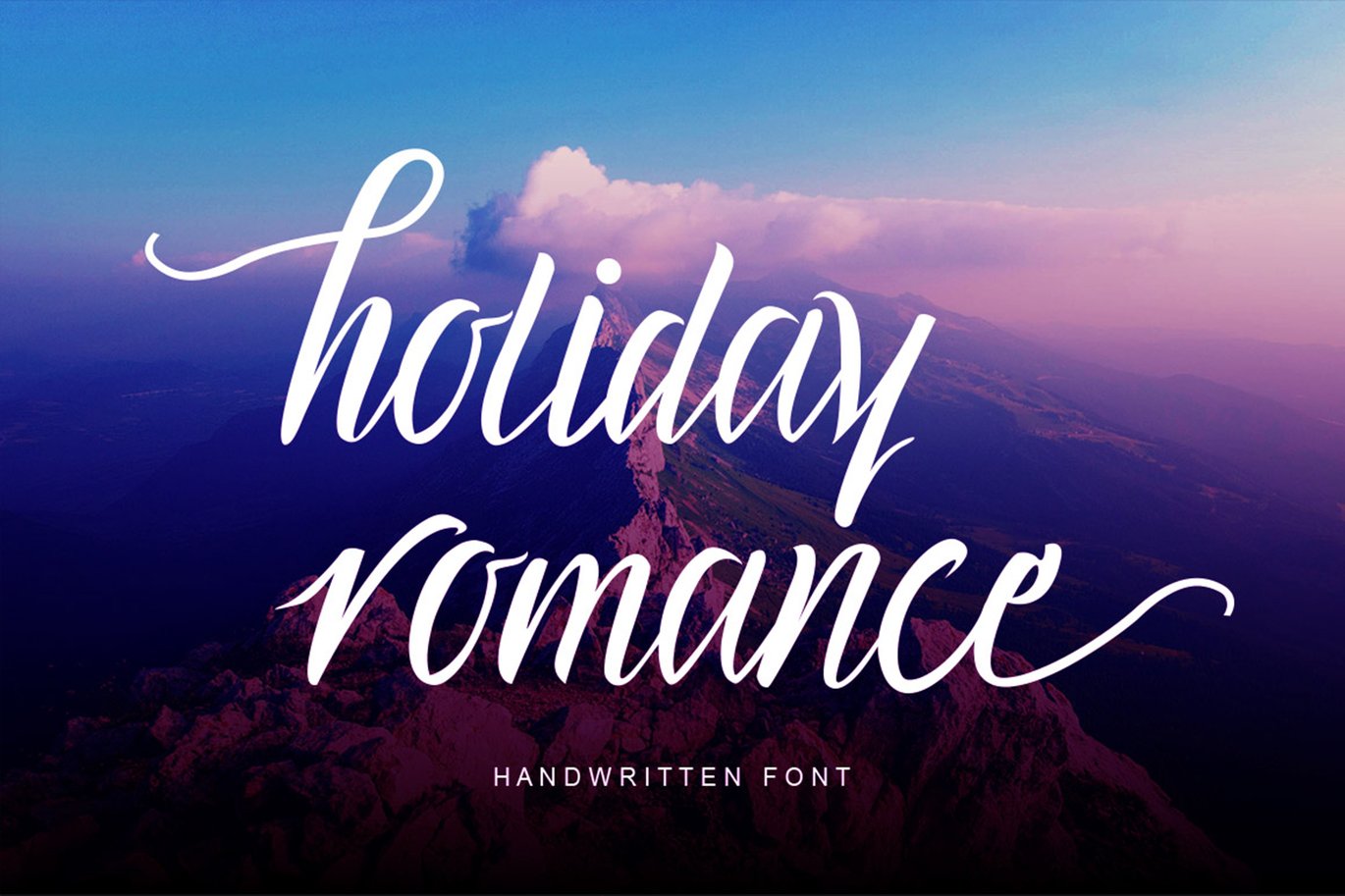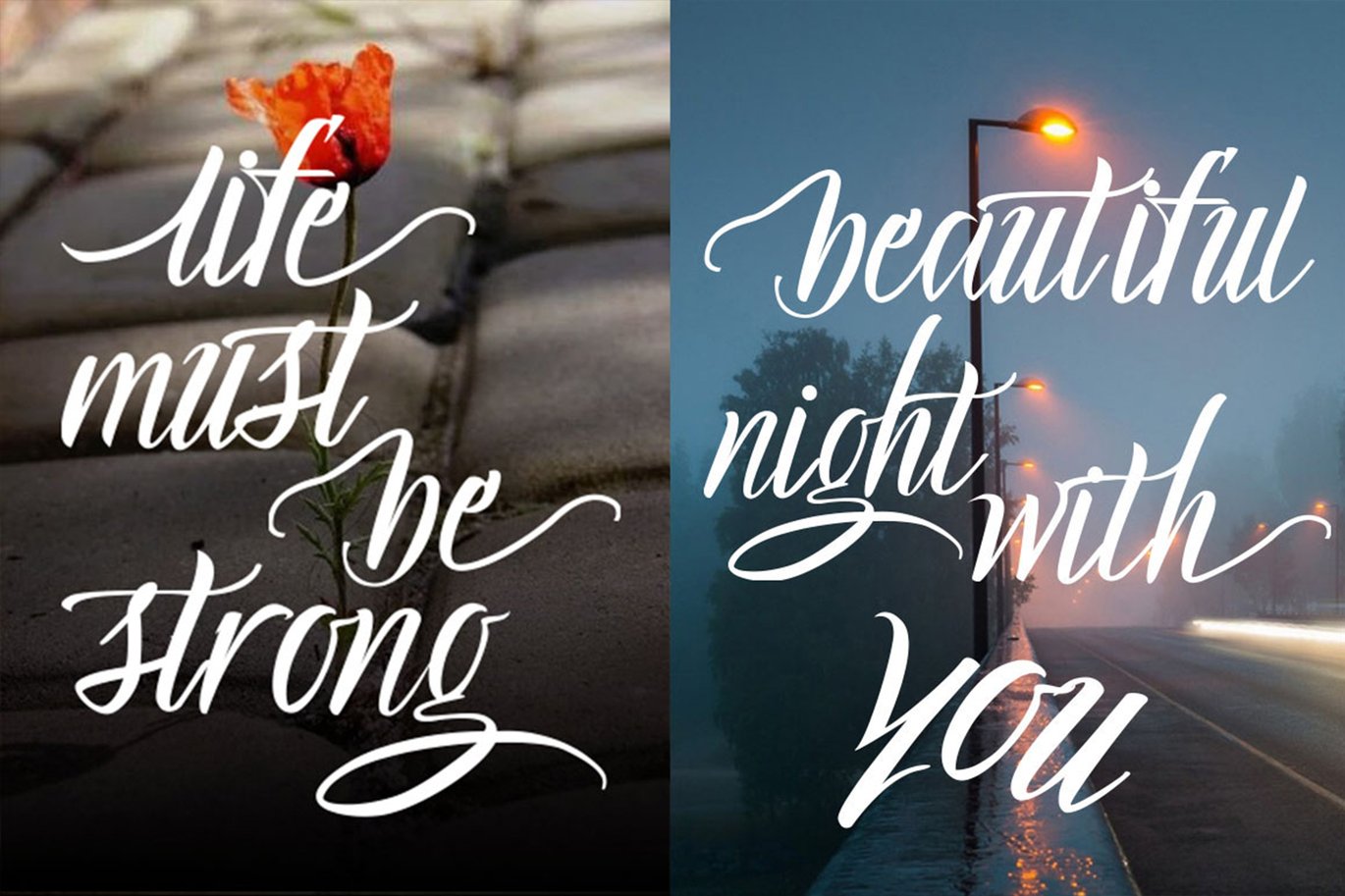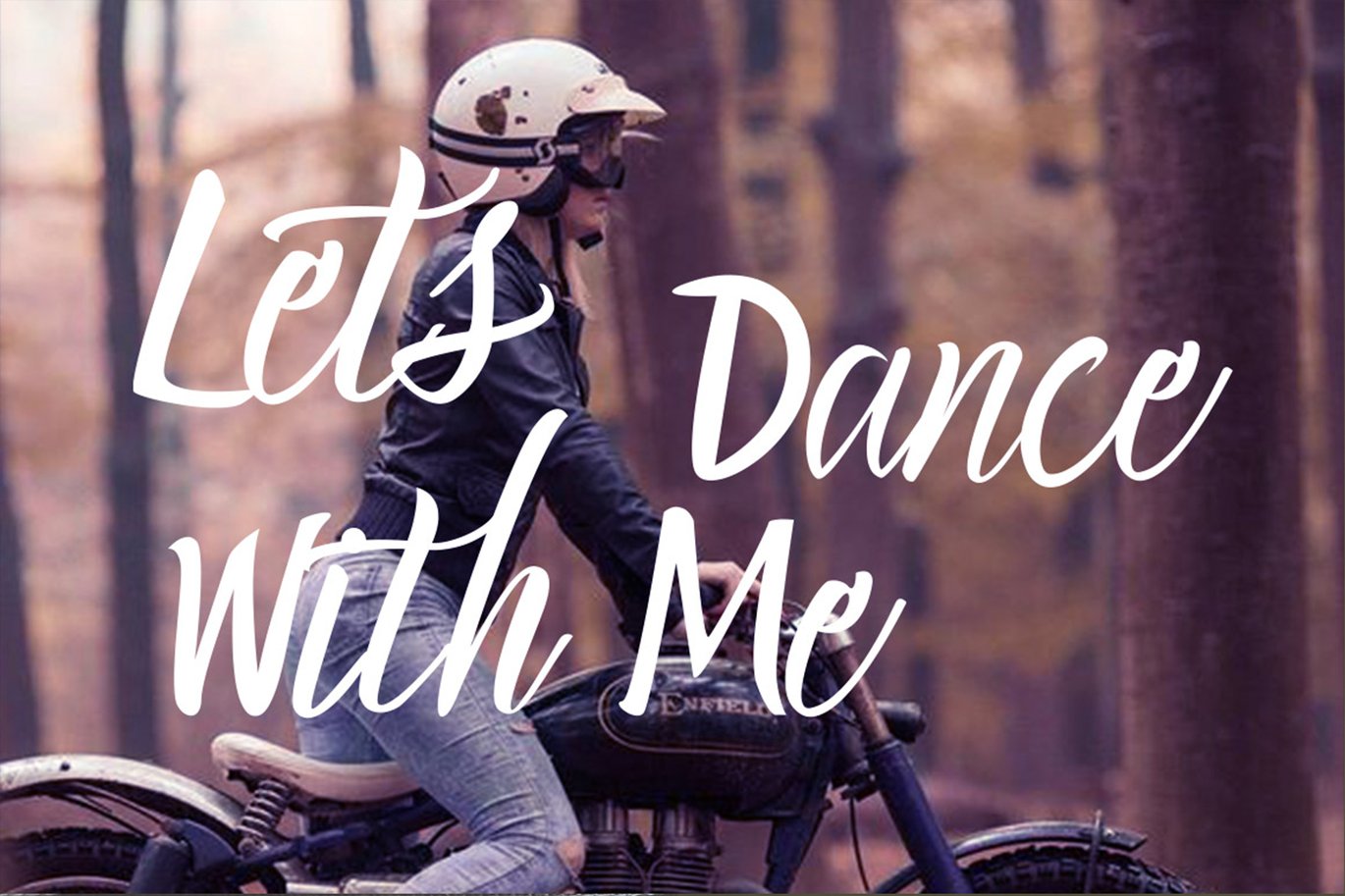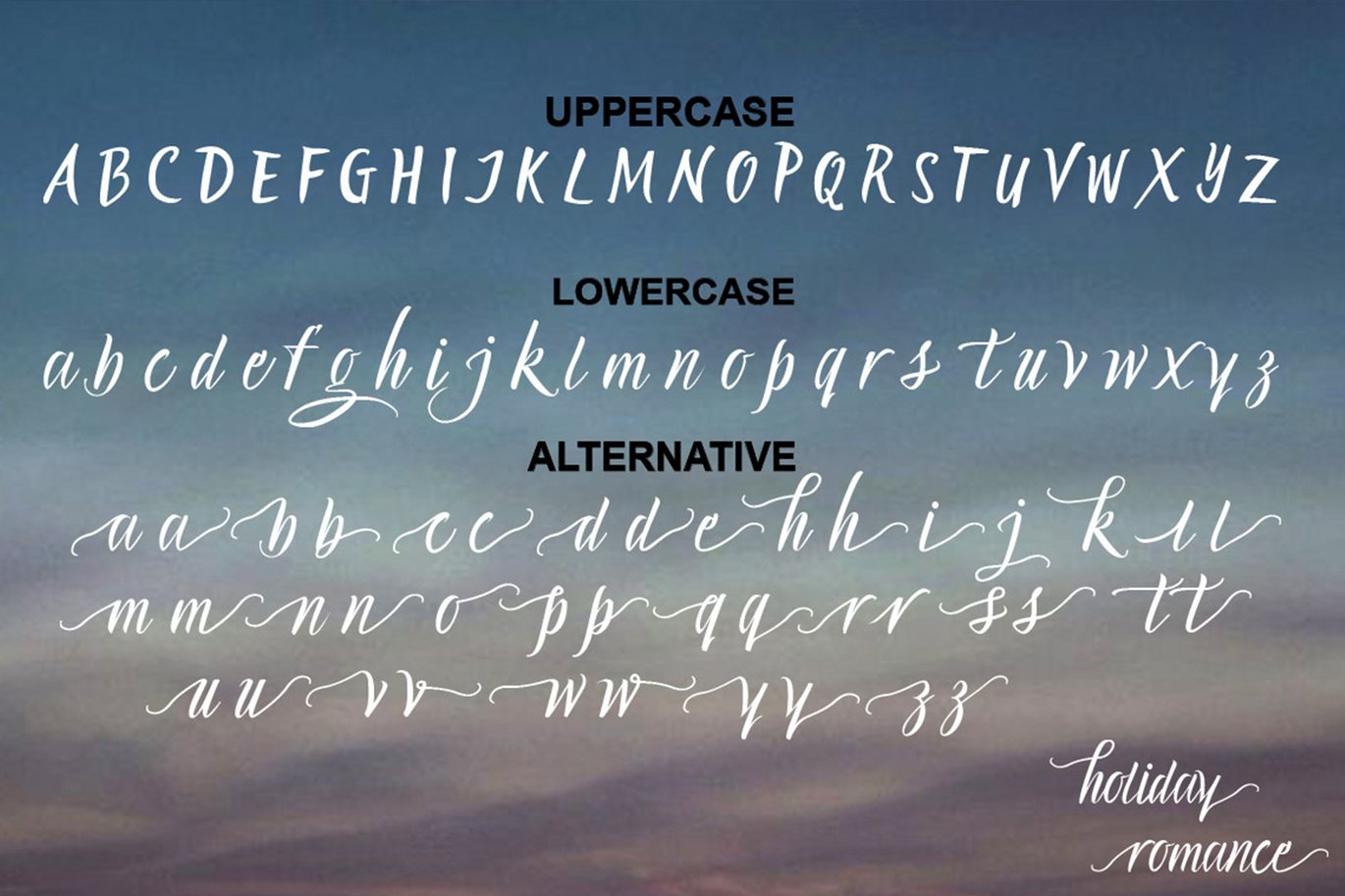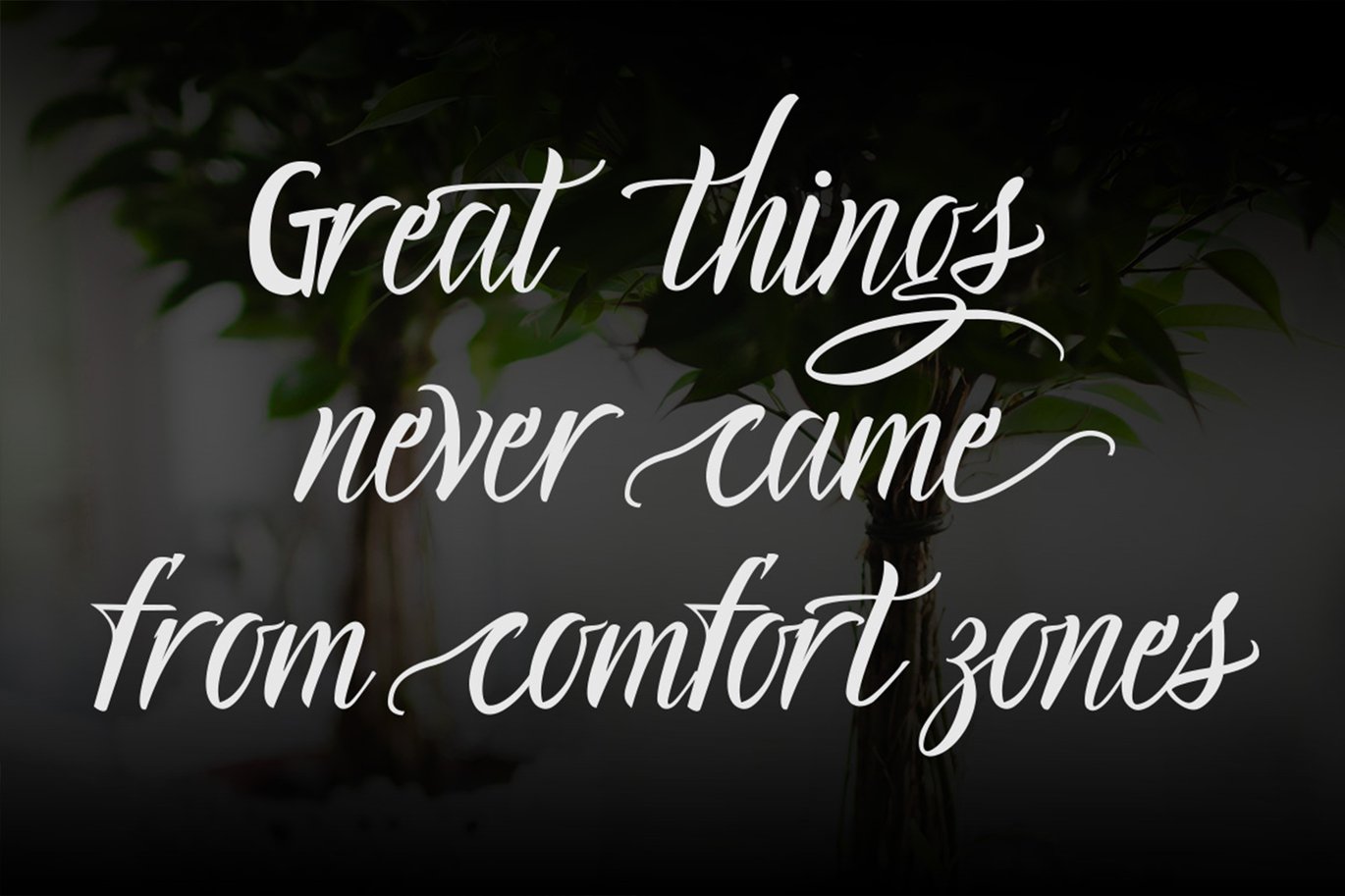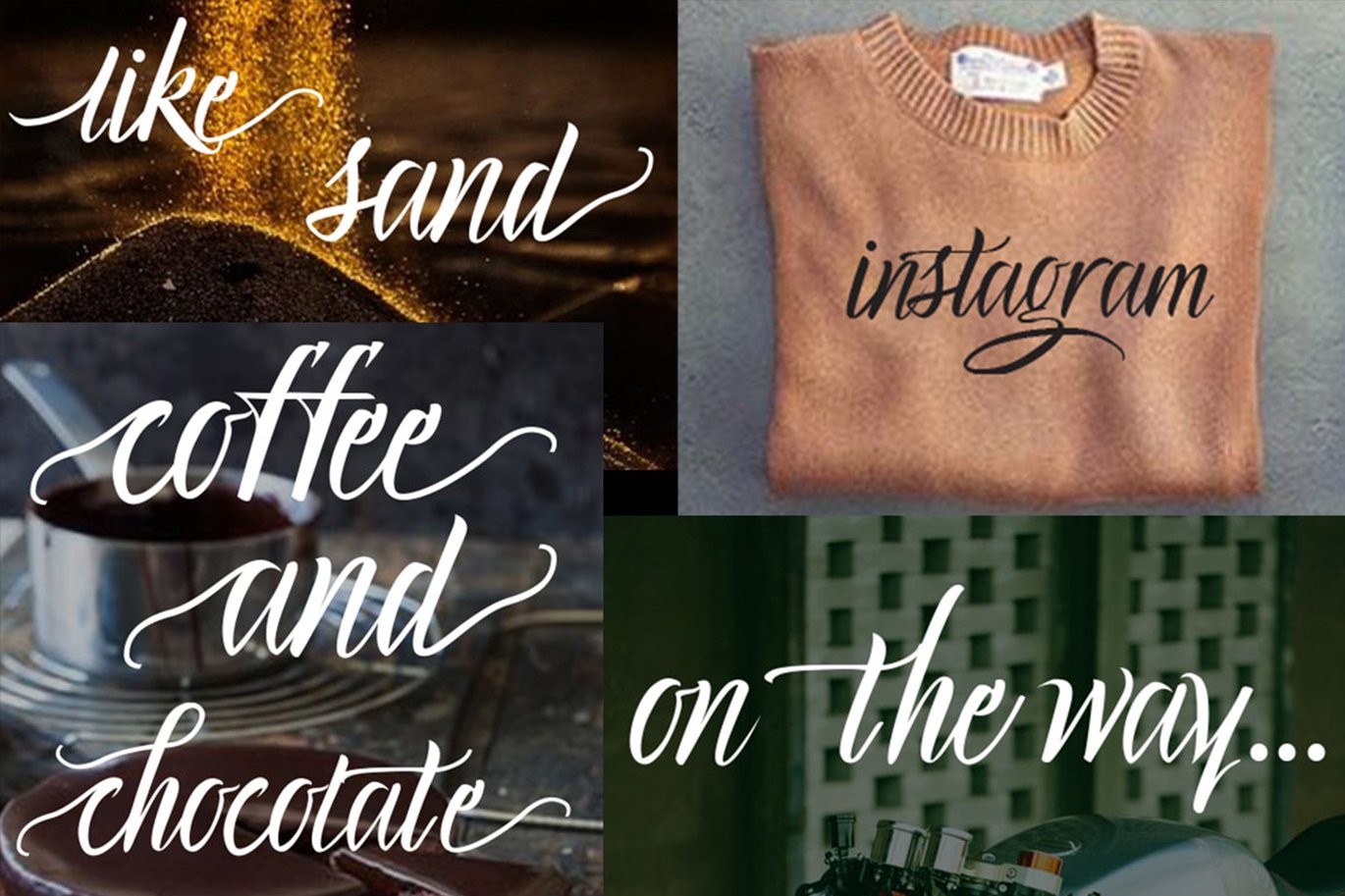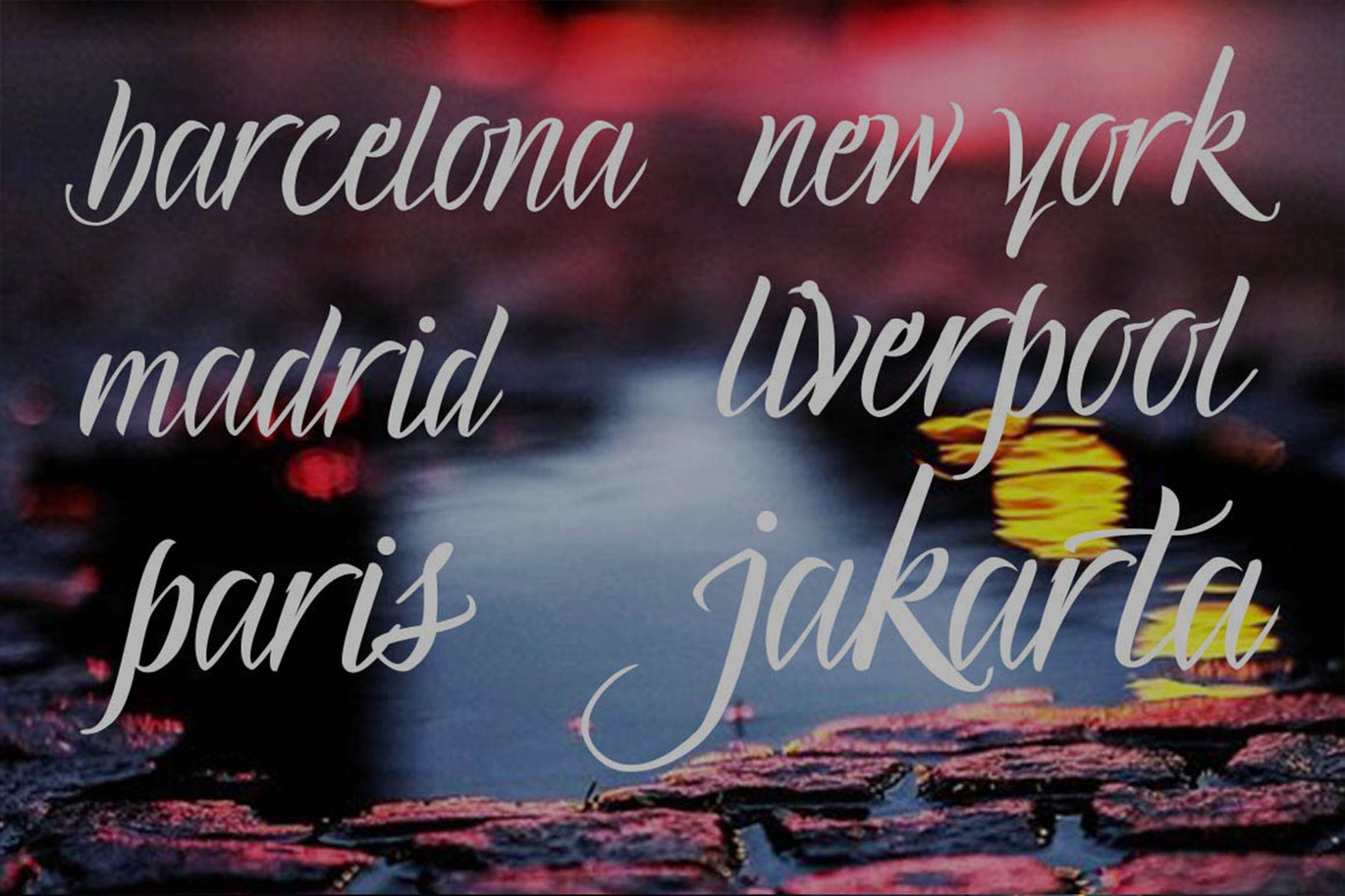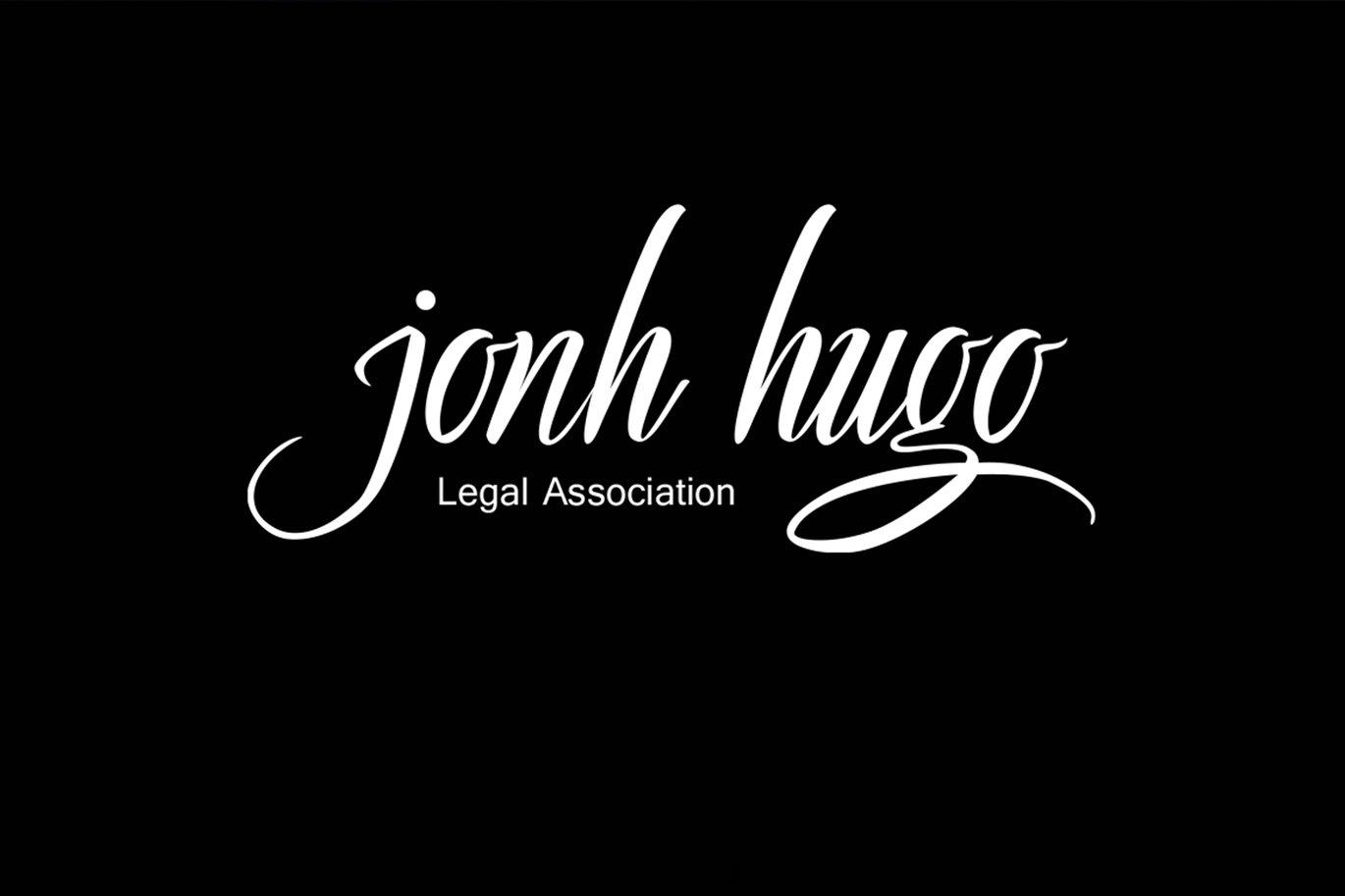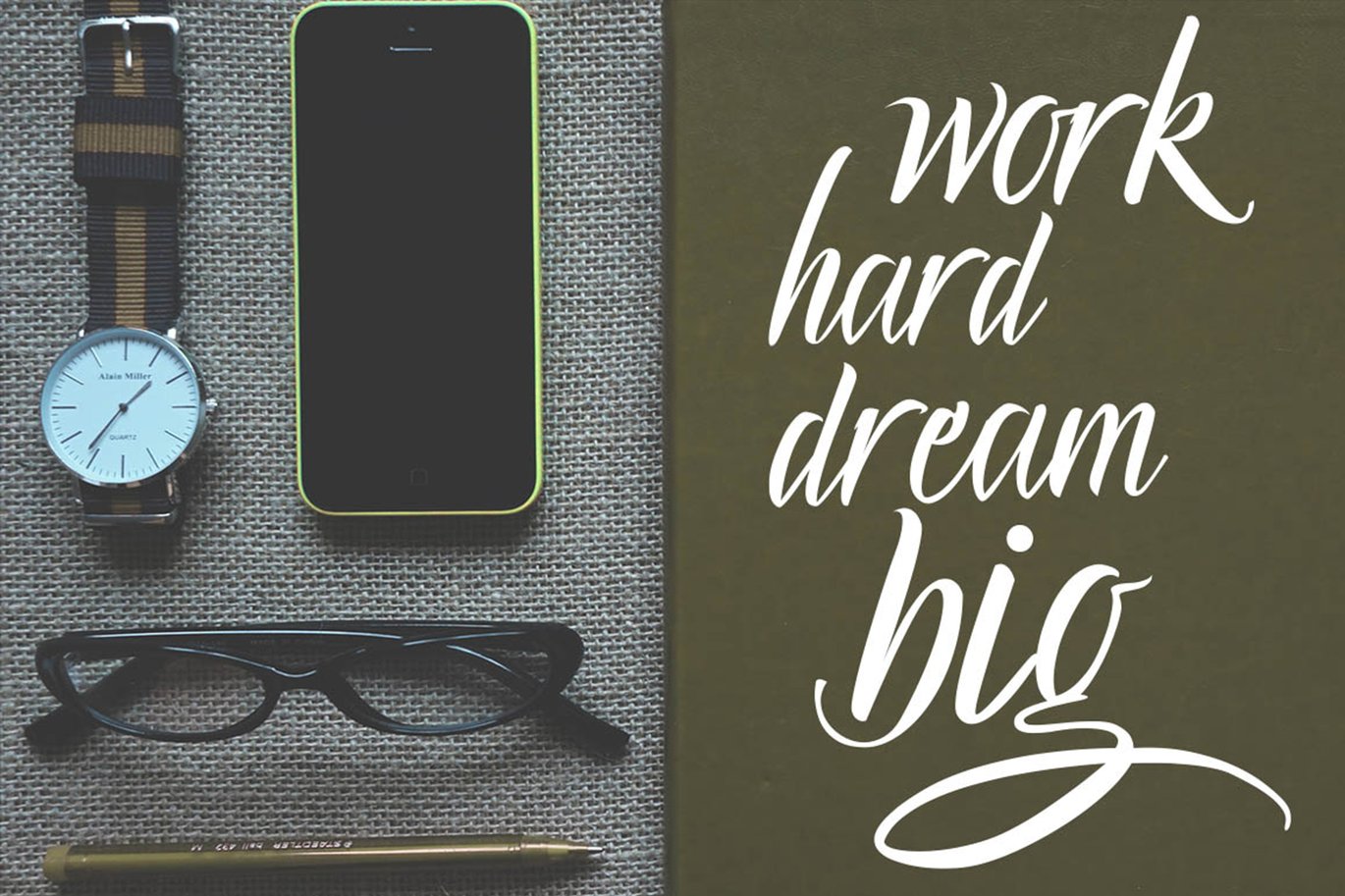
Holiday Romance Beautiful Cursive Font Script
Holiday Romance is a Handwritten Font Styles with More Alternative. Ideal for logos, name tag, handwritten quotes, product packaging, merchandise, social media & greeting cards. It contains a full set of lower & uppercase letters, a large range of punctuation, numerals, and multilingual support.